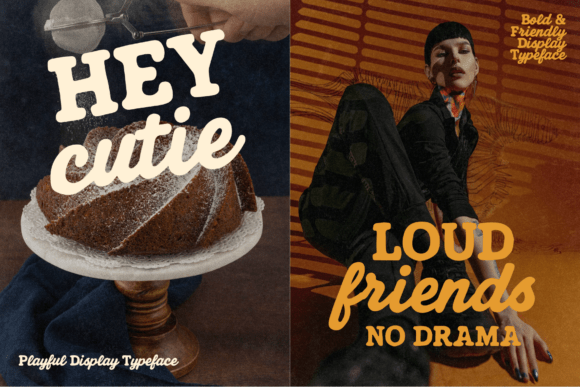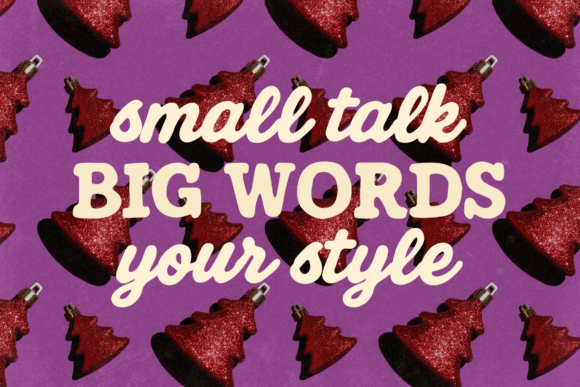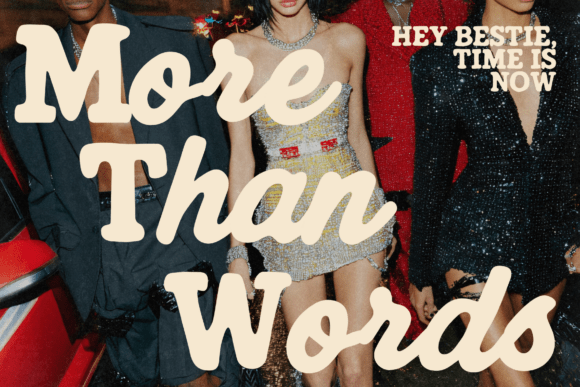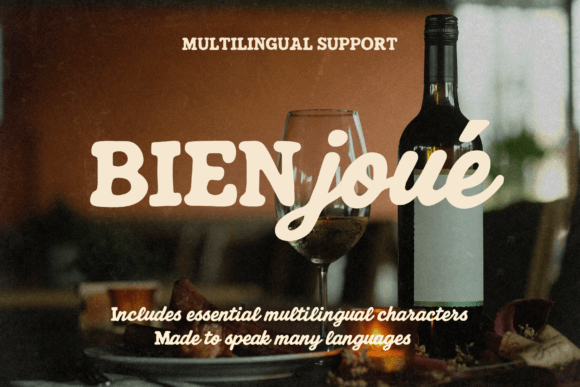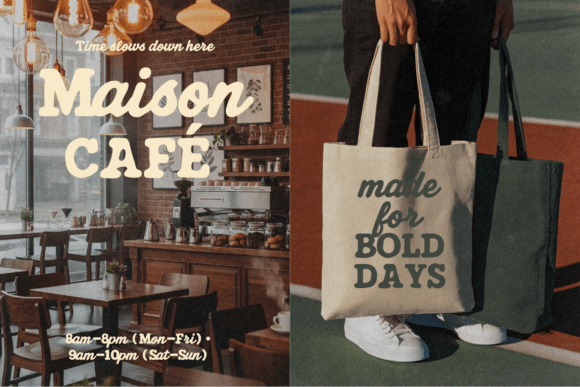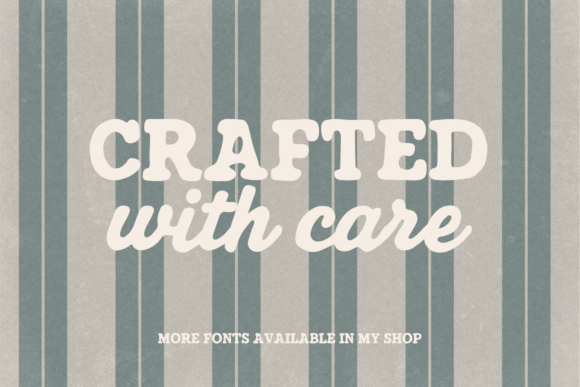
The Ultimate Typography Companion: Introducing Bold Friends Forever Font
Do you remember the rush of excitement when you stumbled upon the perfect font for your project? The one that elevates your design, speaks to your audience, and leaves a lasting impression? That’s exactly what we’re excited to introduce – the Bold Friends Forever Font.
This vibrant display typeface is designed to bring people together, evoke confidence, and radiate playful creativity. By fusing the charm of vintage typography with the modern energy of contemporary visuals, Bold Friends Forever Font is the perfect companion for designers seeking to create a unique and unforgettable identity. Its versatility makes it an ideal choice for branding, logos, fashion, lifestyle projects, and more – a true game-changer for creatives looking to take their designs to the next level.
Bold Friends Forever Font Key Features
- Font Family: Bold Friends Forever Font is a unique, hand-drawn font that offers a fun and playful feel.
- Unique Characteristics: Features a bold, rounded design with a subtle texture, making it perfect for creating eye-catching headings and titles.
Designer Review: Bold Friends Forever Font
Overall, I think the Bold Friends Forever Font has some great qualities that make it a fun and playful choice for certain projects. ✨ The font’s bold and rounded style is perfect for creating a friendly and approachable atmosphere. I also appreciate the variety of weights and styles available, which makes it easy to customize to suit different design needs. ✨ Additionally, the font’s clean and modern lines make it a great choice for digital designs, such as social media graphics and websites.
However, there are a few limitations to consider. ⚠️ One of the main issues is that the font can be a bit overwhelming when used in large quantities. The bold style can be too dominant, making it difficult to read. ⚠️ Additionally, the font’s rounded style can sometimes make it hard to distinguish between similar characters, such as ‘b’ and ‘d’. ⚠️
Pros:
- Fun and playful style
- Variety of weights and styles
- Perfect for digital designs
Cons:
- Can be overwhelming when used in large quantities
- Rounded style can make it hard to distinguish between characters
Tips for Getting the Most Out of the Bold Friends Forever Font
Here are a few tips for getting the most out of the Bold Friends Forever Font:
- Use it for titles and headings to add a bold and playful touch.
- Combine it with other fonts for a unique and eye-catching design.
- Experiment with different font sizes and styles to create a visually appealing effect.
The Bold Friends Forever Font is perfect for:
- Party invitations and decorations.
- Children’s birthday party designs.
- Summer-themed designs and graphics.
Alternatives to Bold Friends Forever Font
Great Vibes is a modern, elegant script font that is perfect for creating a friendly and approachable atmosphere. It is ideal for use in invitations, social media graphics, and other designs where a casual, handwritten feel is desired.
Compared to Bold Friends Forever Font, Great Vibes has a more refined and sophisticated look, making it suitable for a wider range of applications.
Pacifico is a beautiful, cursive font that evokes a sense of relaxation and calmness. It is perfect for use in designs that require a soothing and natural feel, such as beach-themed websites, travel brochures, and spa menus.